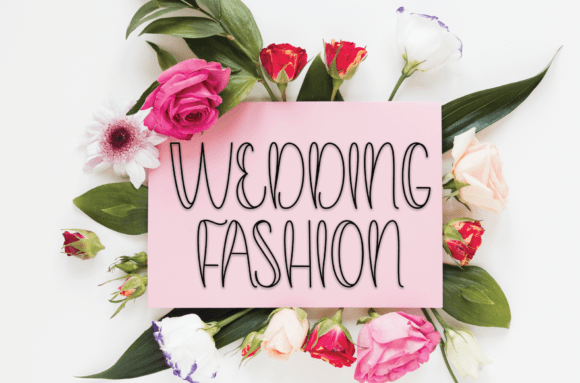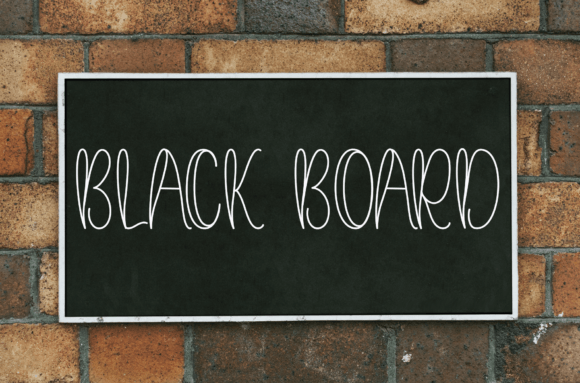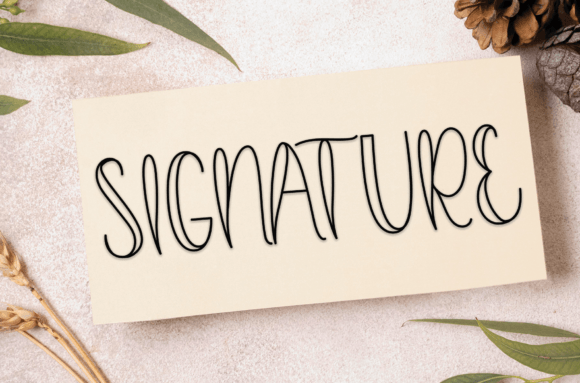
Introduction to Offline Store Font
One such font that has been making waves in the design community is the Offline Store Font. This sweet and friendly handwritten font is a breath of fresh air, perfect for adding a fun touch to your designs. Whether you’re creating wedding invitations, cards, or any other project that requires a high-quality, creative font, Offline Store Font is an excellent choice.
What sets Offline Store Font apart is its unique, high-quality design that can be easily customized to fit your needs. Plus, with a transparent background, it’s perfect for overlaying on images or using as a standalone design resource. And the best part? It’s available for free download, making it an invaluable addition to any designer’s toolkit.
Offline Store Font
- High-quality vector font, perfect for creative projects that require a modern and sleek aesthetic.
- Transparent background, allowing for seamless integration with custom backgrounds and designs.
- Resolution-independent, ensuring crisp and clear display across various screen sizes and resolutions.
- Unique, hand-drawn design elements, adding a touch of personality to any creative project.
Honest Review: Offline Store Font
As a designer, I’m always on the lookout for high-quality fonts that can elevate my creative projects. Recently, I stumbled upon the Offline Store Font, and I’m excited to share my thoughts on it.
- ✨ The font has a sleek, modern design that’s perfect for minimalist projects.
- ✨ The transparent background makes it easy to use on various backgrounds and designs.
- ⚠️ The font may not be suitable for projects that require a lot of text, as it can become difficult to read at smaller sizes.
- ⚠️ The font doesn’t come with a comprehensive character set, which may be a limitation for designers working on international projects.
Overall, I think the Offline Store Font is a solid addition to any designer’s toolkit. While it may have a few limitations, its high-quality design and free download make it a great resource for creative projects. I’d definitely recommend it to designers looking for a modern, minimalist font.
Offline Store Font
Getting the Most Out of Offline Store Font
To get the most out of the Offline Store Font, use it in a high-quality creative project where the font’s unique design can shine. Experiment with different font sizes, colors, and styles to create a visually appealing design.
The Offline Store Font is perfect for designing e-commerce websites, product labels, and marketing materials. Its transparent background makes it ideal for use on images and videos.
Whether you’re a seasoned designer or just starting out, Offline Store Font is definitely worth trying. Its sleek and modern aesthetic is sure to impress, and its free download makes it accessible to designers of all levels. So why not download Offline Store Font today and see the difference it can make in your next creative project?